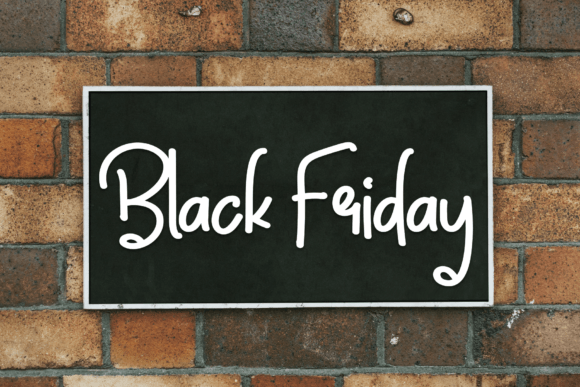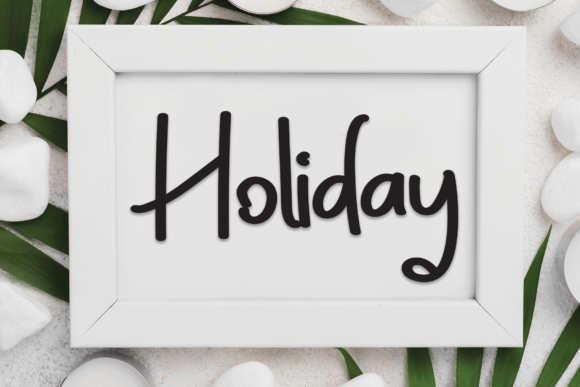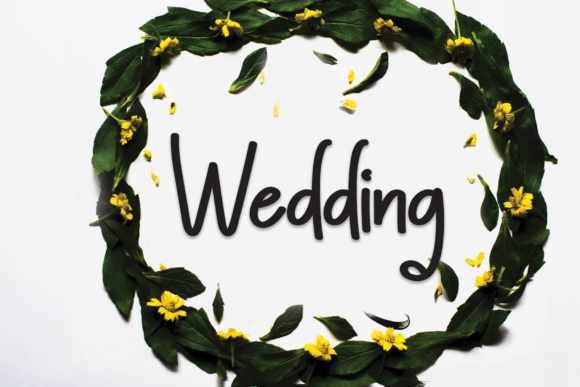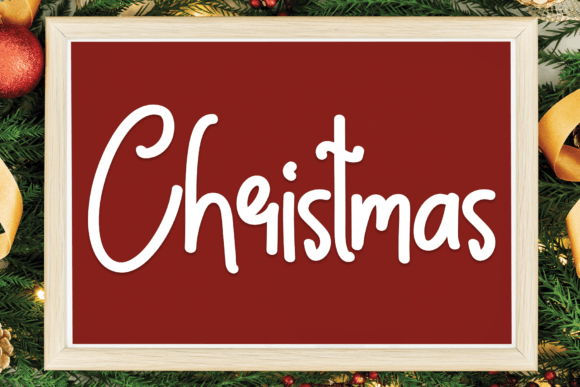
Presentation Font
Add a Personal Touch with Presentation Font
Presentation Font is a clean, friendly handwritten typeface designed to bring warmth and charm to your projects. With its natural and inviting style, this font is an ideal choice for anyone looking to infuse personality into their work without compromising on readability.
Great for Crafting and Design Projects
Whether you’re designing greeting cards or working on a digital project, Presentation Font is flexible enough to meet your needs. Here are a few great ways to use it:
• DIY and crafting projects
• Custom t-shirts or mugs
• Presentation slides with a personal touch
• Social media designs
• Printable planners or worksheets
Why Choose Presentation Font?
The handwritten style makes it feel personal and genuine. It isn’t too thick or too thin—just perfectly balanced for both screen and print. This means your audience can enjoy clarity and style in equal measure.
Perfect for Branding and Personal Use
From blog headers to packaging, this font suits various needs. It works beautifully in logos, Instagram posts, and even educational material. If you’re aiming to create a connection with your audience, Presentation Font helps you do that visually.